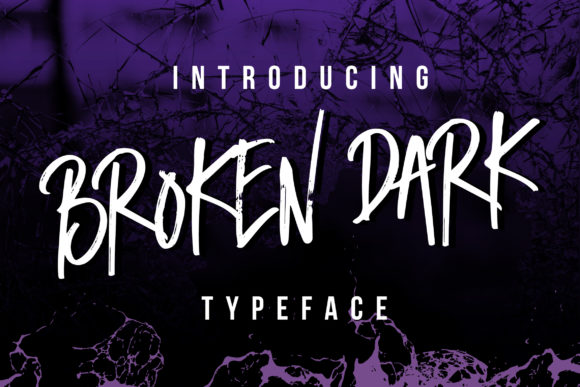
The Power of Broken Dark: Unleashing a Twisted Script in Your Designs
I’ll never forget the design project that led me to discover Broken Dark. I was working on a branding campaign for a new coffee shop, and I needed a font that would convey a sense of edginess and raw energy. I had spent hours scouring font websites and trying out different combinations, but nothing seemed quite right. That was when I stumbled upon Broken Dark – a twisted script with a rough edge that instantly caught my eye.
An Honest Review of Broken Dark
- ✨ Unique and eye-catching design that’s sure to turn heads
- ✅ Perfect for adding a raw, edgy feel to any design project
- 💡 Highly versatile and can be used for a wide range of applications, from logos to posters
- 🎨 Great for designers who want to add a touch of personality to their work
While Broken Dark is an amazing font, it’s not without its quirks. For example, some letters may appear a bit inconsistent in size or shape, which can be a bit jarring if you’re used to more traditional fonts. ⚠️ Additionally, the font may not be the best choice for body text or long blocks of writing, as it can be a bit tough to read.
The Backstory Behind Broken Dark
According to the font’s designer, Broken Dark was inspired by the raw energy of urban landscapes and the rebellious spirit of underground art. The designer wanted to create a font that would capture the essence of this edgy, avant-garde aesthetic and make it accessible to designers and artists around the world.
Q: What kind of designs is Broken Dark best suited for?
A: Broken Dark is a versatile font that can be used for a wide range of designs, from logos and branding to posters and social media graphics. It’s particularly well-suited for designs that need a raw, edgy feel.
Q: Is Broken Dark a difficult font to read?
A: While Broken Dark is a unique and eye-catching font, it can be a bit challenging to read, especially in large blocks of text. It’s best used for headlines, titles, or short phrases.
Q: Can I use Broken Dark with other fonts?
A: Yes, Broken Dark can be paired with other fonts to create a unique and interesting design. Experiment with different font combinations to find the perfect balance of style and readability.